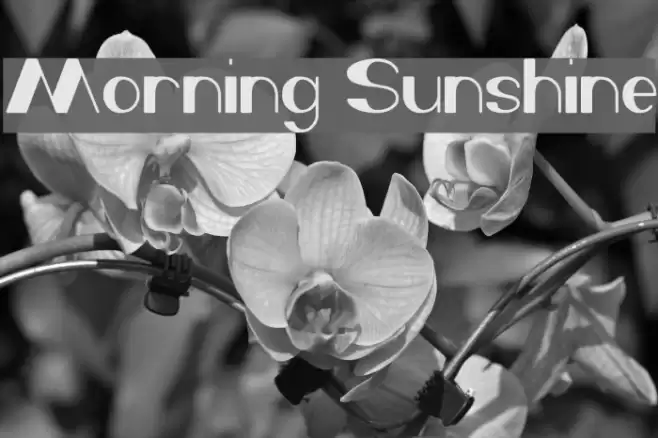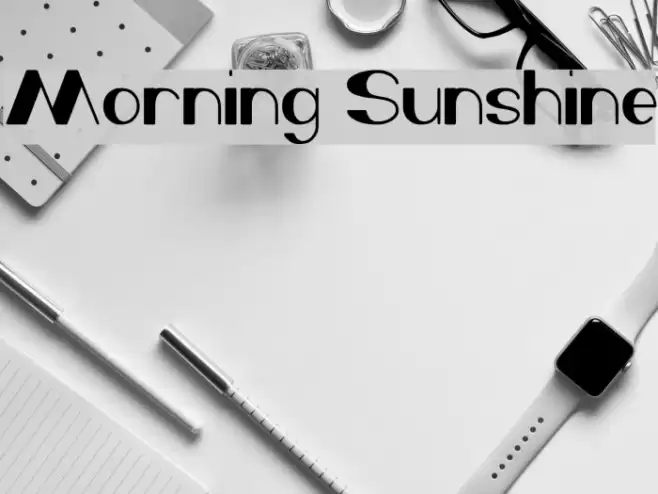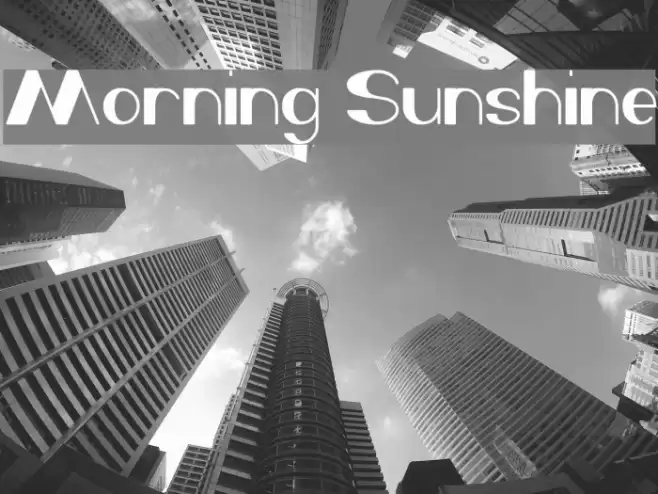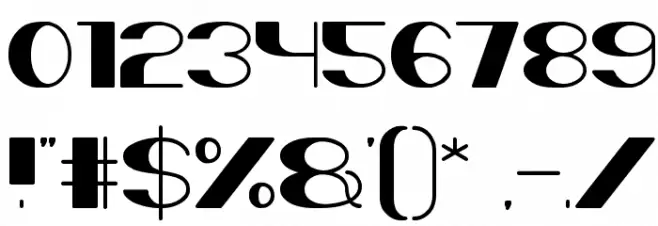
Morning Sunshine Font
Morning Sunshine Description
This font features a modern and artistic design with a unique blend of geometric and organic shapes. The uppercase letters are bold and striking, with a mix of thick and thin strokes that create a dynamic visual contrast. The lowercase letters maintain a consistent style, offering a smooth and rounded appearance that complements the uppercase set. Numbers and special characters follow the same design principles, ensuring a cohesive look across all text elements. The font's distinct style makes it suitable for creative projects that require a contemporary and eye-catching typeface.
A modern, artistic font with bold geometric and organic shapes from Uncategorized fonts.
- Proposed Projects: Ideal for branding, advertising, posters, and creative digital media.